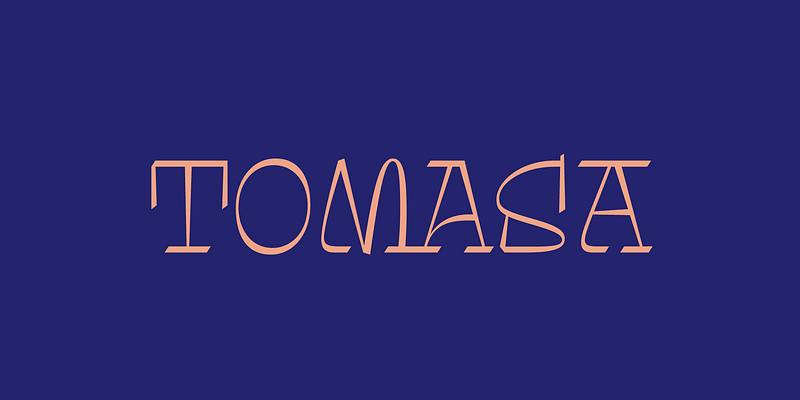
Tomasa Font Free Download is an elegant and versatile serif typeface that combines timeless sophistication with modern sensibilities. With its balanced proportions, gentle curves, and stylish detailing, this font is perfect for high-end branding, editorial design, invitations, and any project that requires a refined and professional touch.
The Tomasa Font offers a classic aesthetic while maintaining excellent legibility, making it ideal for both large headlines and body text. Its versatility allows it to work seamlessly across print and digital media, elevating your design with its elegant charm.